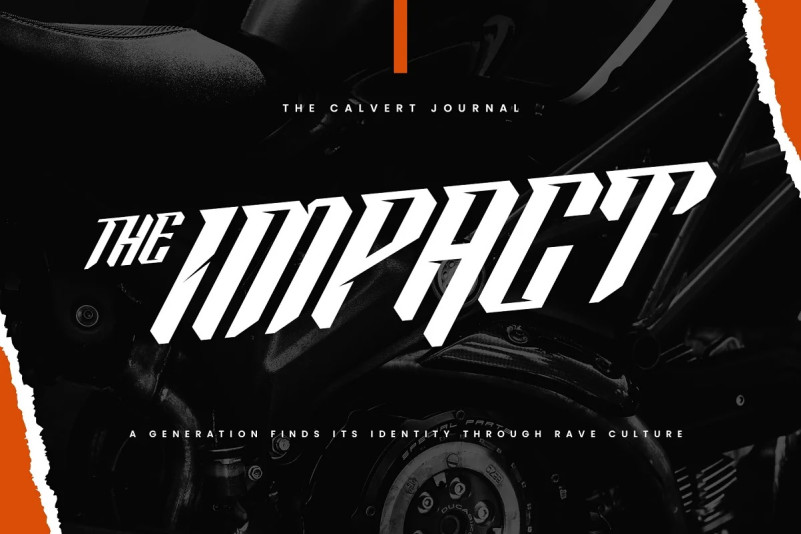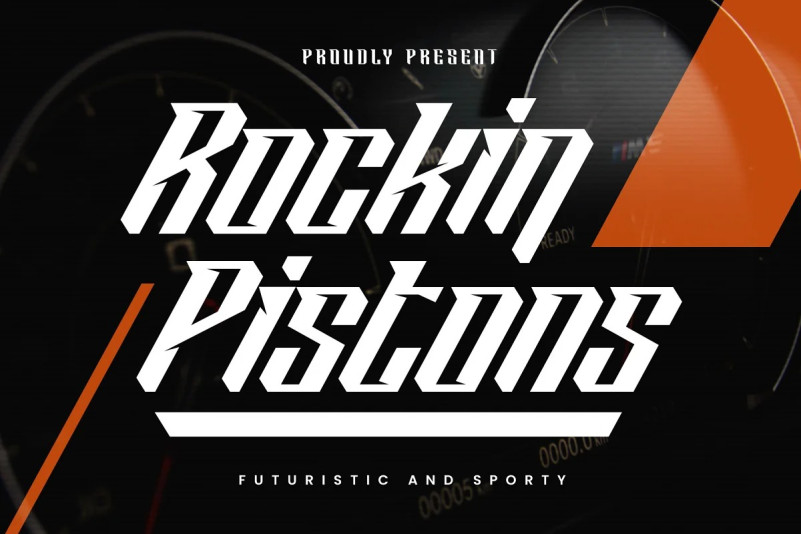
Rockin Pistons Font
Rockin Pistons Font, a font that exudes strength, energy, modernity, and speed. Its unique design with sharp edges gives it a powerful and fantastic impression.
Rockin Pistons can be used for futuristic, sci-fi, sports, and automotive designs., this font is perfect for any project that needs a strong and dynamic look such as display, headline, football poster, basketball, race poster, sticker, t-shirt design, merchandise, or jersey.
Rockin Pistons comes with special characters, multilingual support, and swashes, making it a versatile option for a variety of uses.